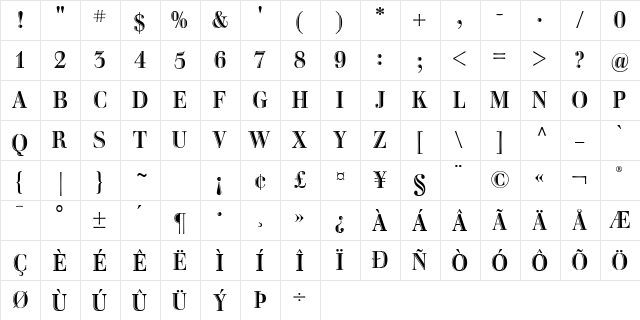
WalburnTooled Regular
Design Context for WalburnTooled Typeface
WalburnTooled takes a measured approach to typography — its balanced proportions and neutral character make it a reliable workhorse for both digital and print work.